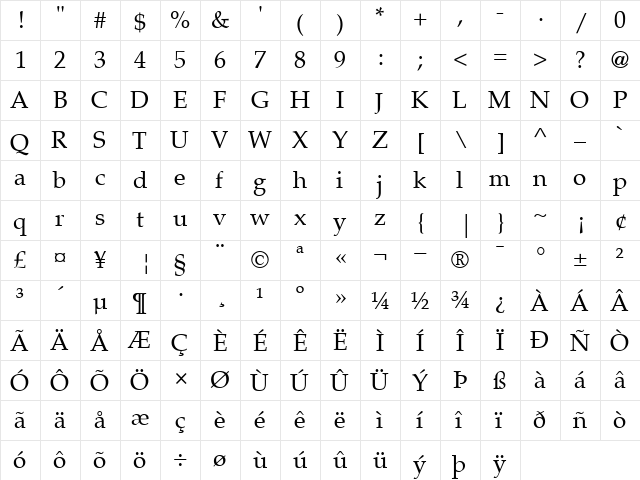
PalatinoRoman Roman
Design Context for PalatinoRoman Typeface
PalatinoRoman is a composed and adaptable typeface that performs quietly and consistently across a wide range of design contexts.
Pro Tip: Pair PalatinoRoman with a font of contrasting weight or personality to build a more expressive typographic hierarchy.